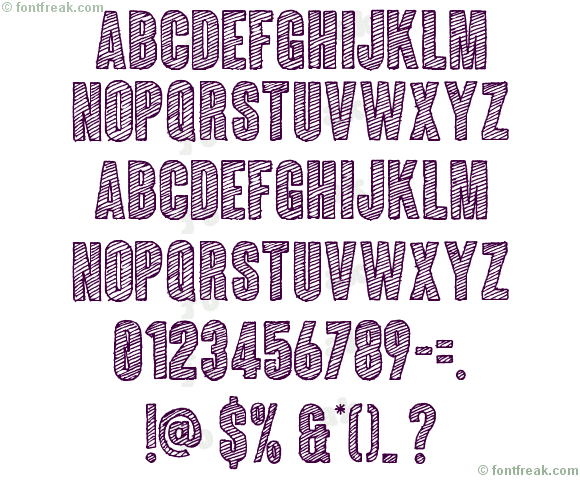
ColunaSketch-CondensedBold
ColunaSketch-CondensedBold, designed by Marco Ugolini, is a striking display font that embodies a unique blend of creativity and boldness. As a condensed typeface, it features a narrow width that allows for effective use in limited space, making it a fantastic choice for various design projects. The font's hand-drawn aesthetic is characterized by its uneven stroke weights and textured lines, giving it a lively and dynamic appearance. The contrast between thick and thin strokes adds a sense of depth, while the slightly irregular shapes contribute to its artistic flair.
This font excels in a variety of applications, making it versatile for designers across different fields. It is particularly well-suited for eye-catching movie posters, where its bold presence can draw attention and convey excitement. Additionally, ColunaSketch-CondensedBold is ideal for creative restaurant menus, providing a playful touch that enhances the dining experience. Graphic designers will find it perfect for branding projects, where a distinct and memorable typeface can help establish a brand identity. Wedding invitations can also benefit from this font's whimsical charm, adding a personal and artistic touch to special occasions.
The target audience for ColunaSketch-CondensedBold includes graphic designers, small business owners, and content creators who seek a font that stands out and captures attention. Its unique characteristics make it a valuable addition to any designer's toolkit.